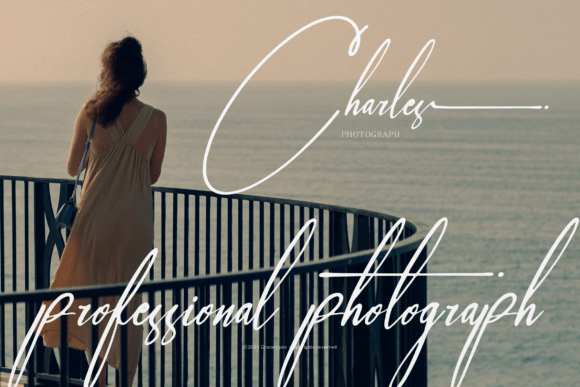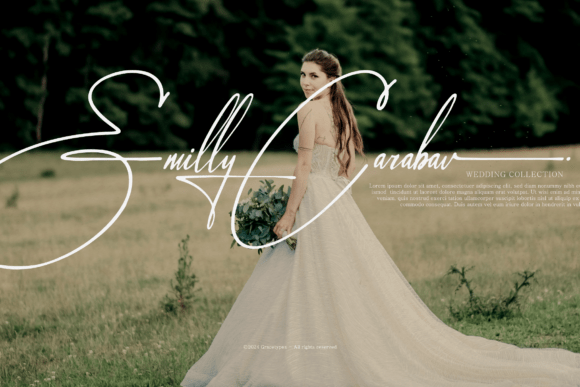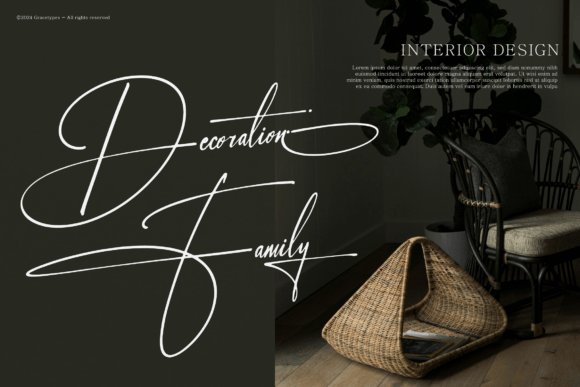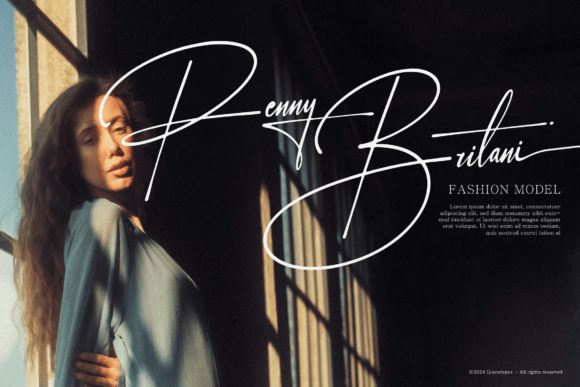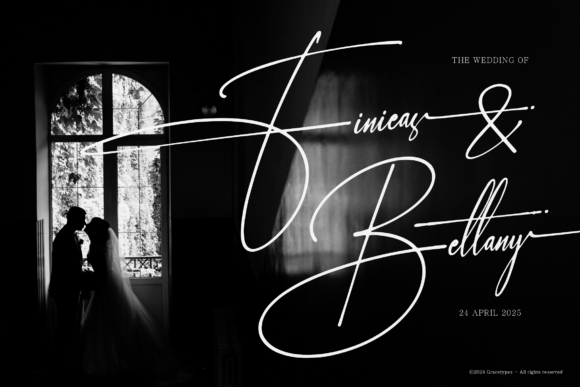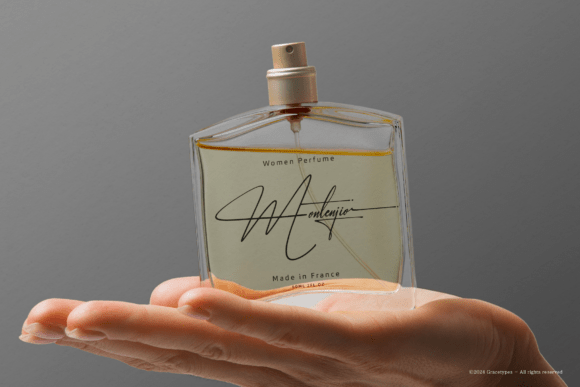
Introducing Desmotalk Kimberly Font: A Delicate Handwritten Style for Your Creative Projects
Are you a designer or crafter looking for a unique and elegant font to elevate your projects? Look no further than Desmotalk Kimberly Font, a delicate handwritten font that is perfect for a wide range of creative endeavors. In this article, we’ll explore the features and benefits of Desmotalk Kimberly Font, and show you how it can add a touch of sophistication and personality to your work.
What is Desmotalk Kimberly Font?
Desmotalk Kimberly Font is a beautiful, handcrafted font that is designed to bring a touch of elegance and whimsy to your projects. With its delicate, cursive strokes and charming character, this font is perfect for anyone looking to add a personal touch to their designs. Whether you’re working on a logo, branding project, or simply want to create something special for your social media channels, Desmotalk Kimberly Font is the perfect choice.
Features of Desmotalk Kimberly Font
So, what makes Desmotalk Kimberly Font so special? Here are just a few of its key features:
- Delicate Handwritten Style: Desmotalk Kimberly Font features a beautiful, handwritten style that is both elegant and approachable.
- Versatile: This font is perfect for a wide range of projects, from logos and branding to homeware designs, product packaging, and more.
- Easy to Read: Despite its delicate nature, Desmotalk Kimberly Font is surprisingly easy to read, making it perfect for use in quotes, posters, and other text-based designs.
- Unique Character: With its charming, cursive strokes and distinctive character, Desmotalk Kimberly Font is sure to add a touch of personality to your projects.
Uses for Desmotalk Kimberly Font
So, what can you use Desmotalk Kimberly Font for? The possibilities are endless! Here are just a few ideas to get you started:
- Logos and Branding: Create a unique and memorable logo for your business or brand with Desmotalk Kimberly Font.
- Homeware Designs: Add a touch of elegance to your homeware designs, from mugs and plates to bedding and wallpaper.
- Product Packaging: Stand out from the crowd with beautiful, custom product packaging featuring Desmotalk Kimberly Font.
- Mugs and Drinkware: Create personalized mugs, water bottles, and other drinkware with this charming font.
- Quotes and Posters: Add a touch of inspiration to your quotes and posters with Desmotalk Kimberly Font.
- T-Shirts and Apparel: Create unique and stylish t-shirts, hoodies, and other apparel with this versatile font.
- Book Covers and Publishing: Add a touch of elegance to your book covers, journals, and other published materials.
- Stationery and Cards: Create beautiful, custom stationery, greeting cards, and invitation cards with Desmotalk Kimberly Font.
Why Choose Desmotalk Kimberly Font?
So, why should you choose Desmotalk Kimberly Font for your next project? Here are just a few reasons:
- Unique and Eye-Catching: This font is sure to grab attention and add a touch of personality to your designs.
- High-Quality: Desmotalk Kimberly Font is a high-quality, professionally-designed font that is perfect for commercial use.
In conclusion, Desmotalk Kimberly Font is a beautiful, delicate handwritten font that is perfect for a wide range of creative projects. With its elegant, cursive strokes and charming character, this font is sure to add a touch of sophistication and personality to your designs. Whether you’re a designer, crafter, or simply someone who loves to create, Desmotalk Kimberly Font is a great choice for anyone looking to elevate their work.